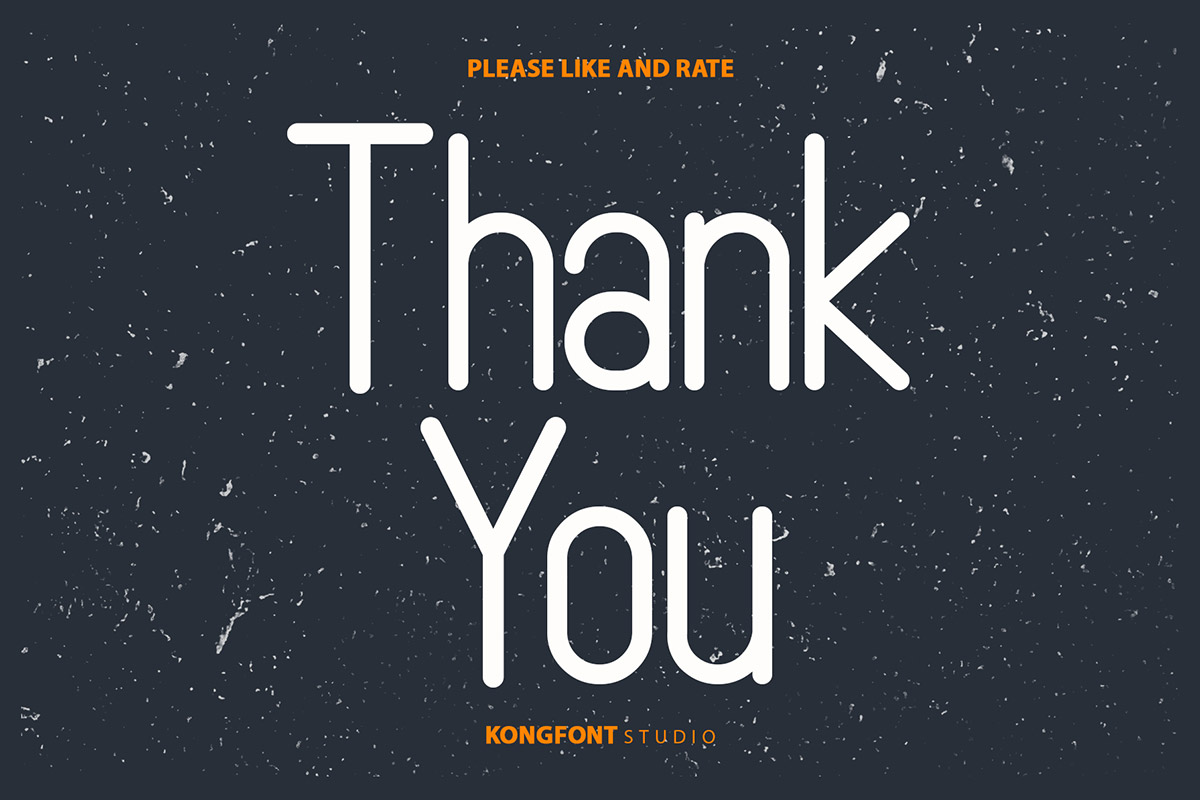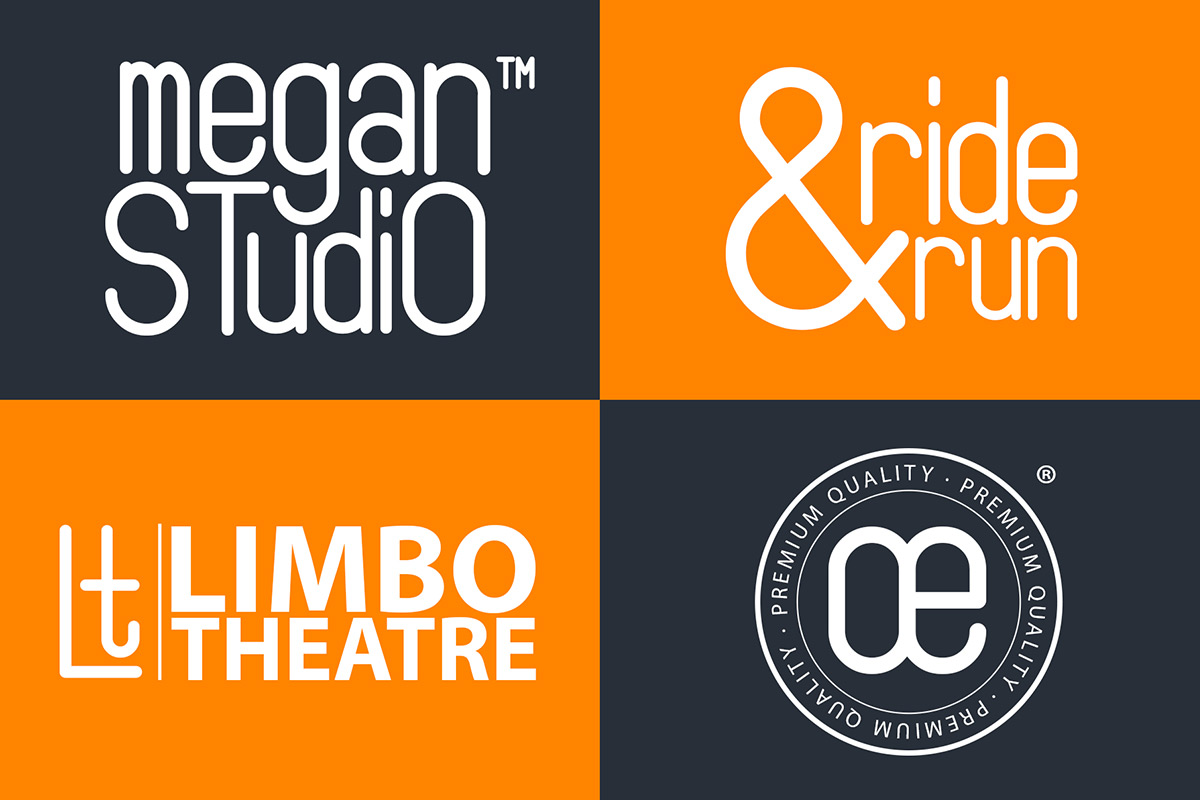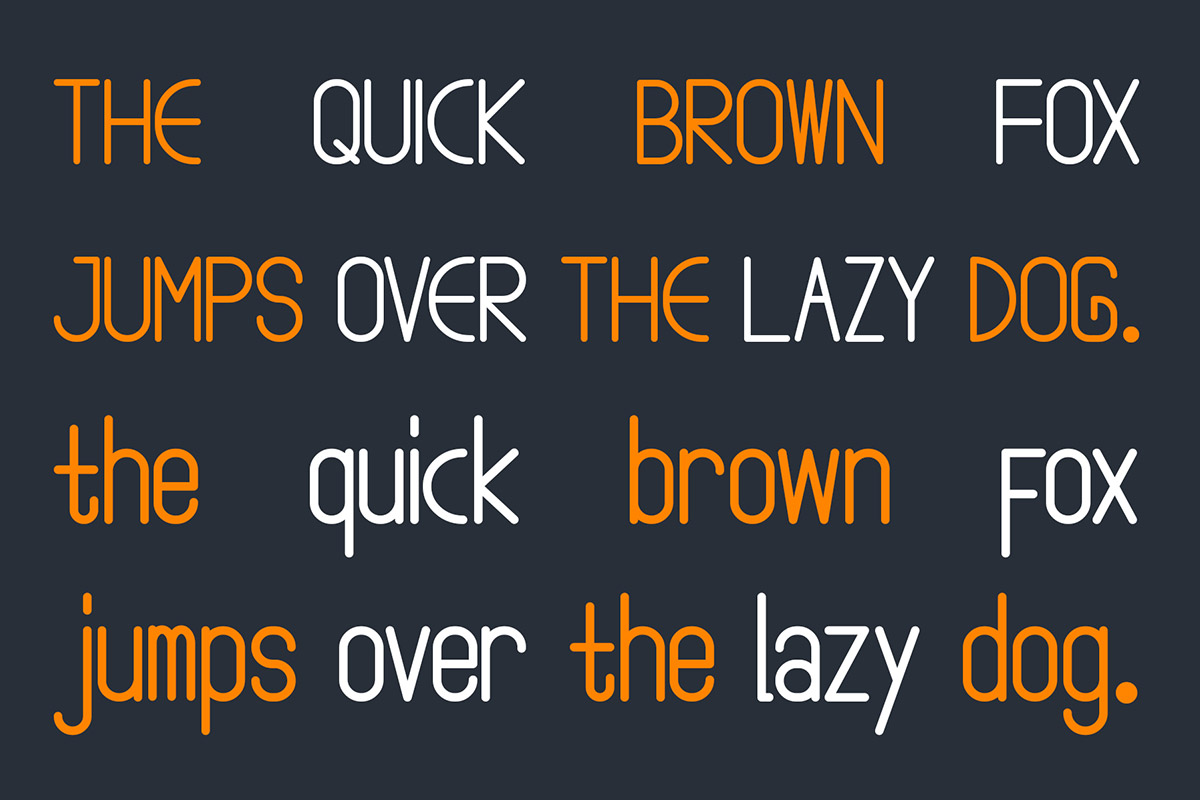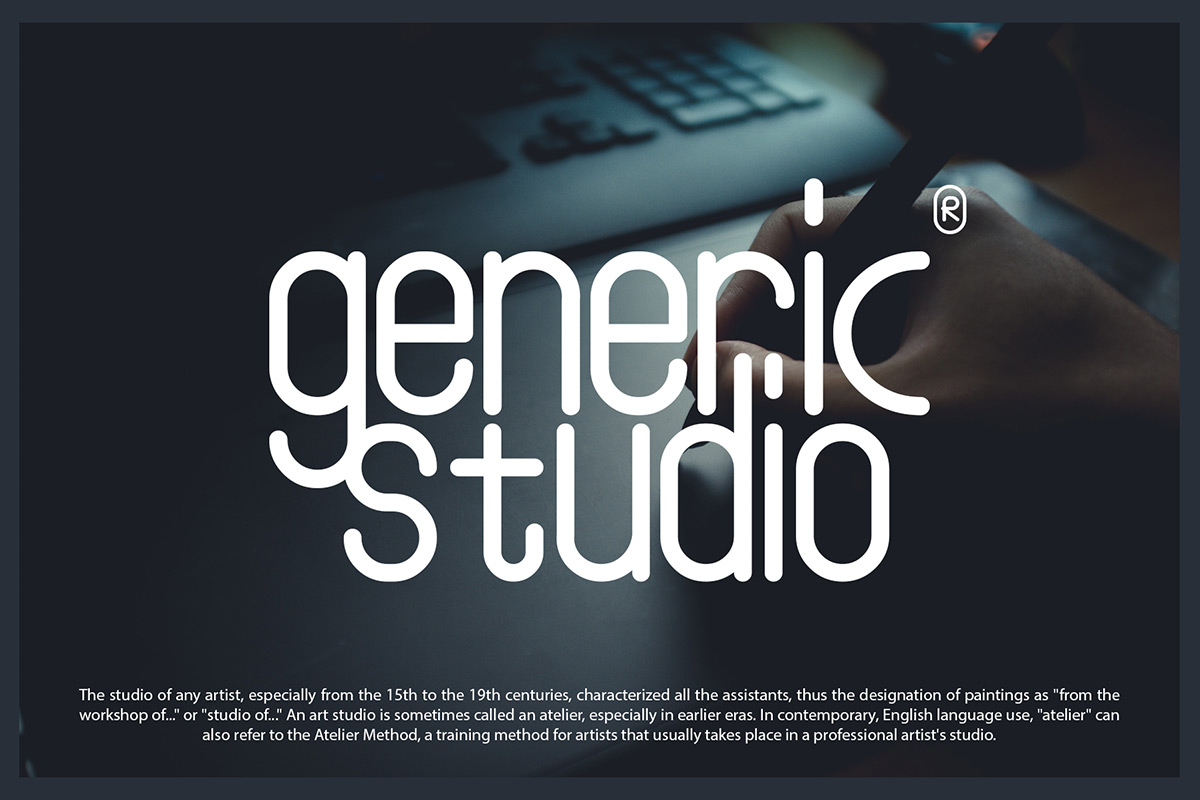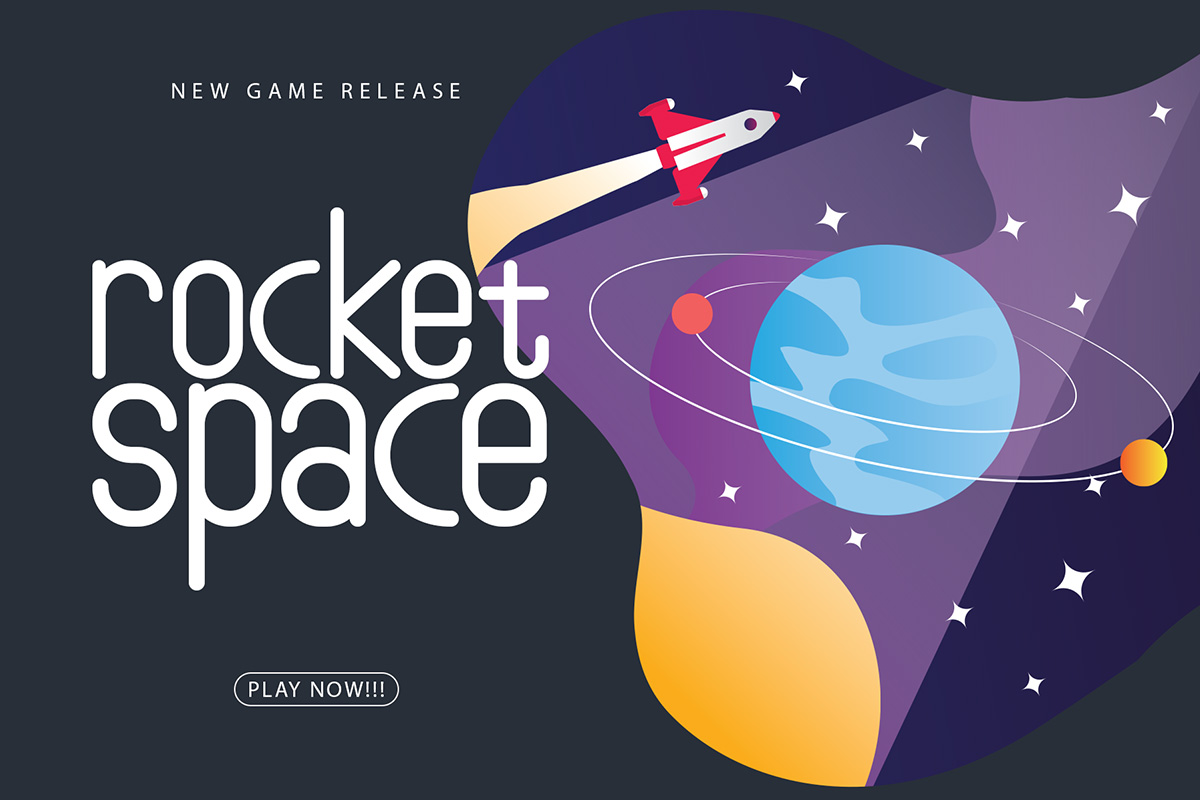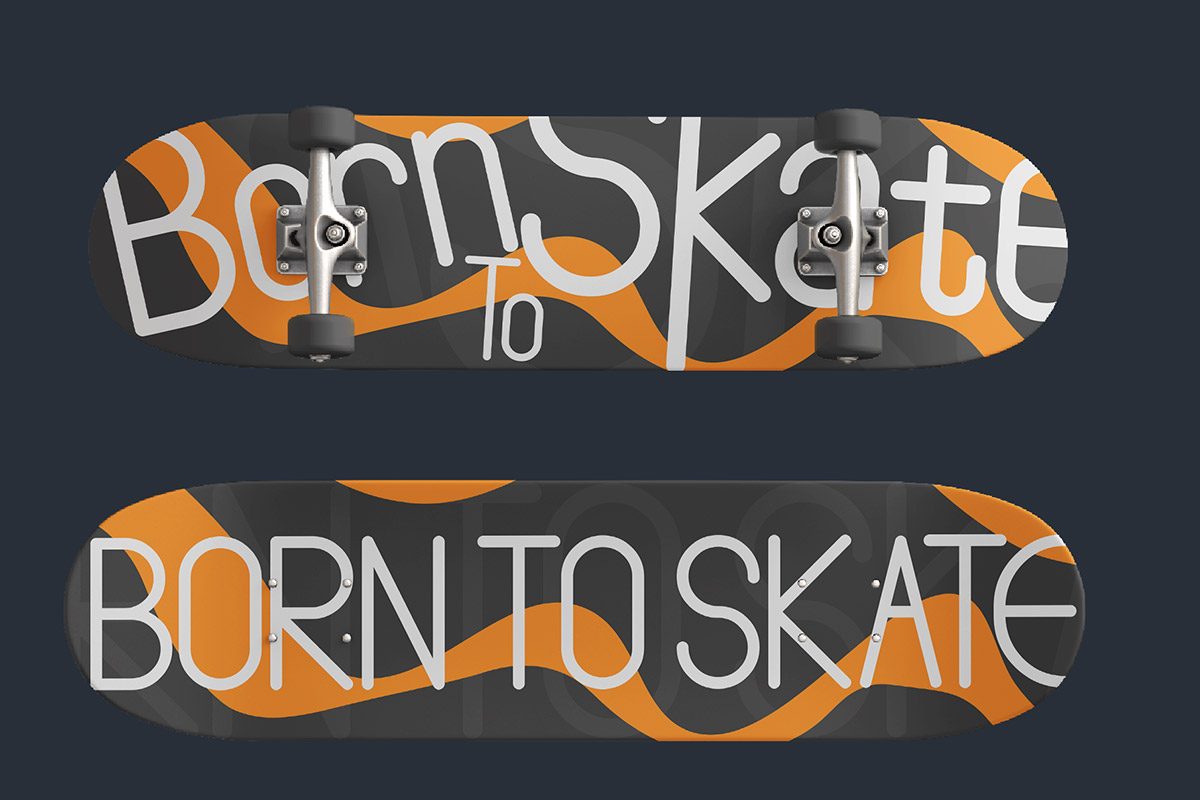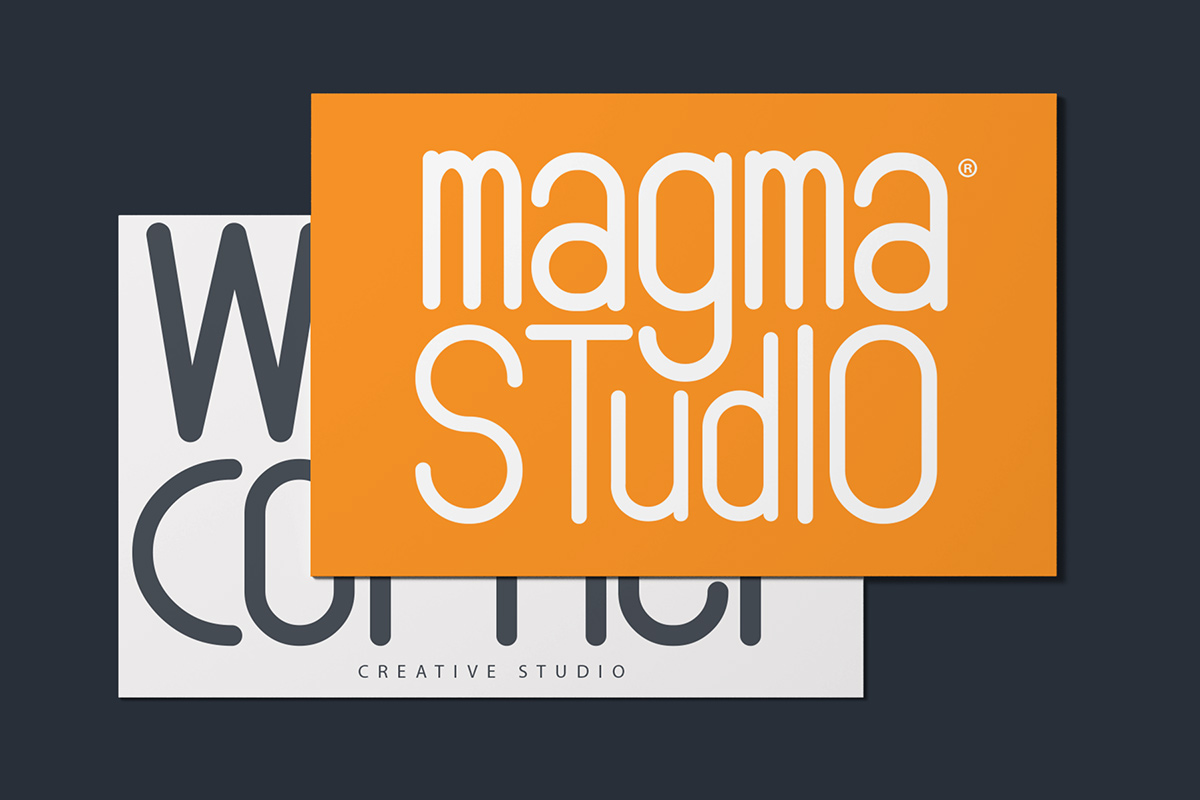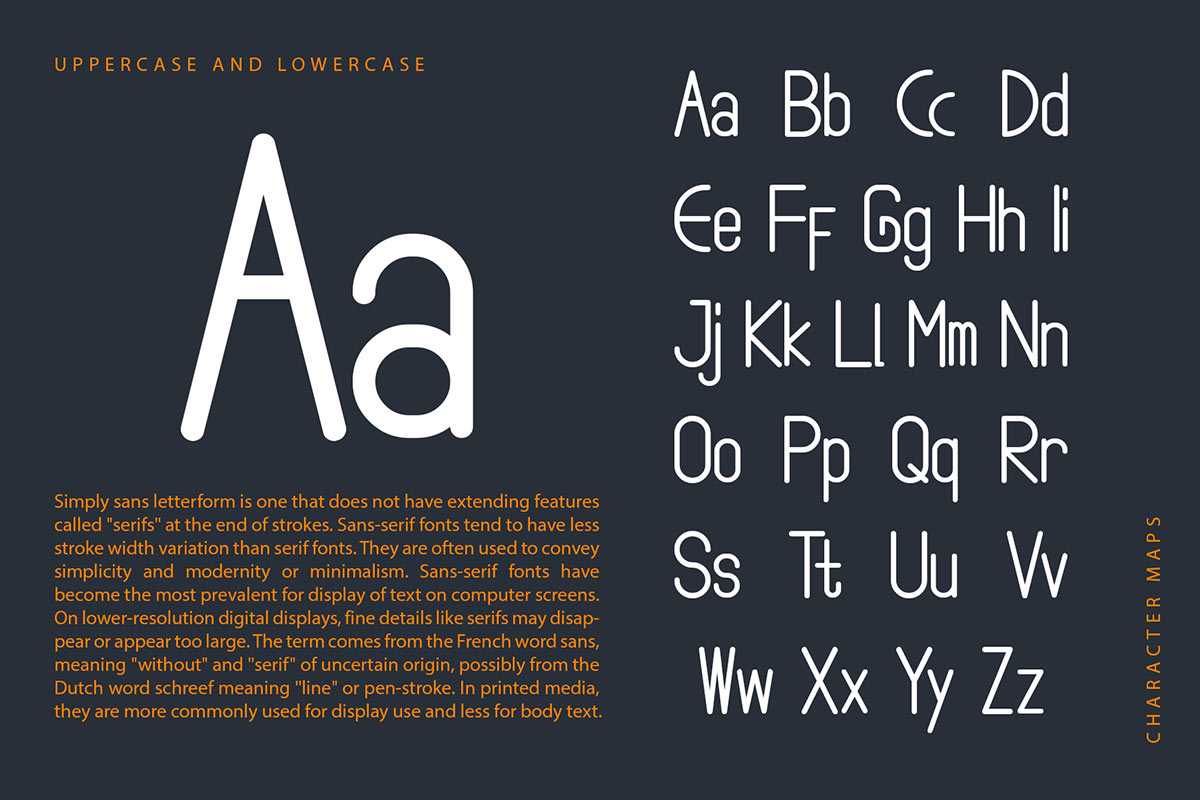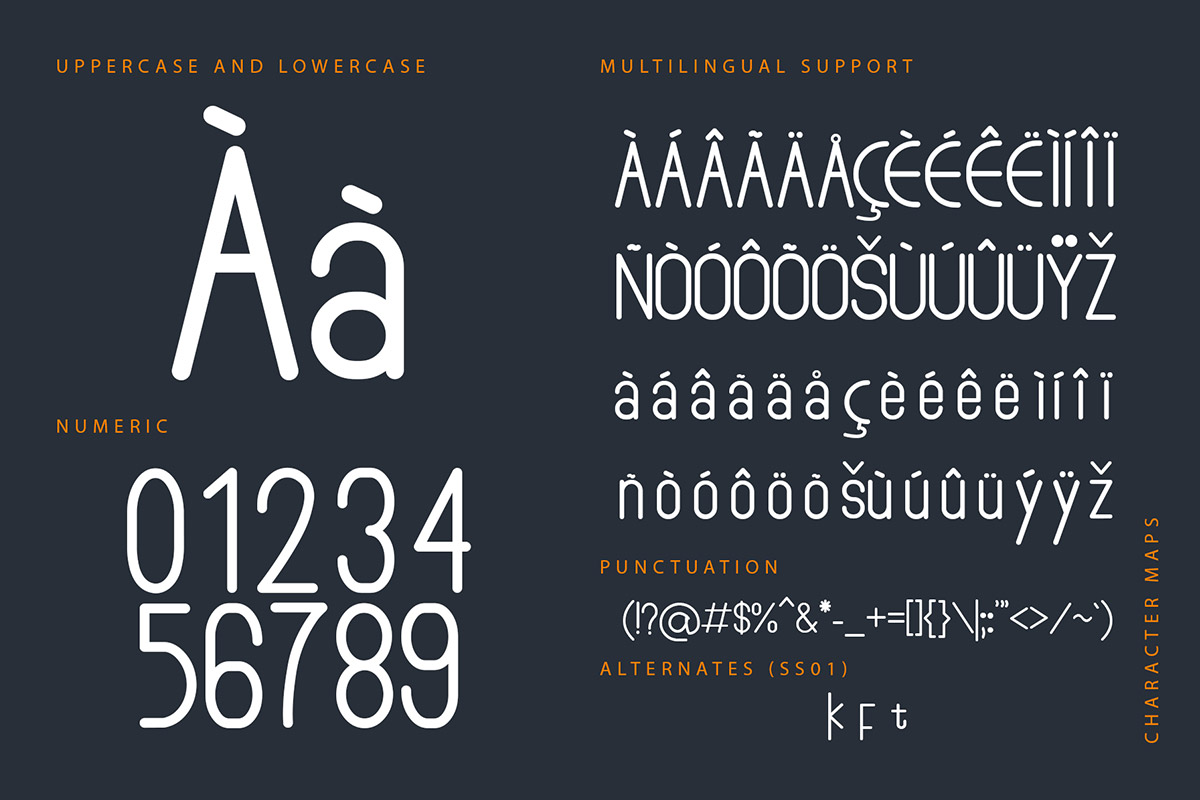
Stikco Font Stikco is one of our Sans-Serif fonts. If you want a sans-serif font that is legible, and easy to use, you should consider picking up Stikco for your project. This font is a clean and modern-looking font with a very minimalistic style. It is a readable typeface that you can use for many things as a digital font and a print font, such as writing on a blog, magazine, or book cover. You can also use Stikco for branding purposes such as creating a logo or tagline for a brand. Some examples of products include clothes, shoes, and hats. Ensure that the font size must be considered in its application to each product to be able to give the impression according to what is inclination. Stikco makes an impression of simple and modern when you see it. There is no need to doubt how this font is compatible with various social media platforms. Our collection of Sans Serif fonts is best for use as Figma fonts, Canva fonts, Freepik Fonts, and Adobe Fonts. They also work as Windows Fonts and Apple Fonts. For your social media needs, you can use and install fonts in our collection of Sans Serif fonts to use as Instagram Fonts, Facebook Fonts, and Twitter Fonts.